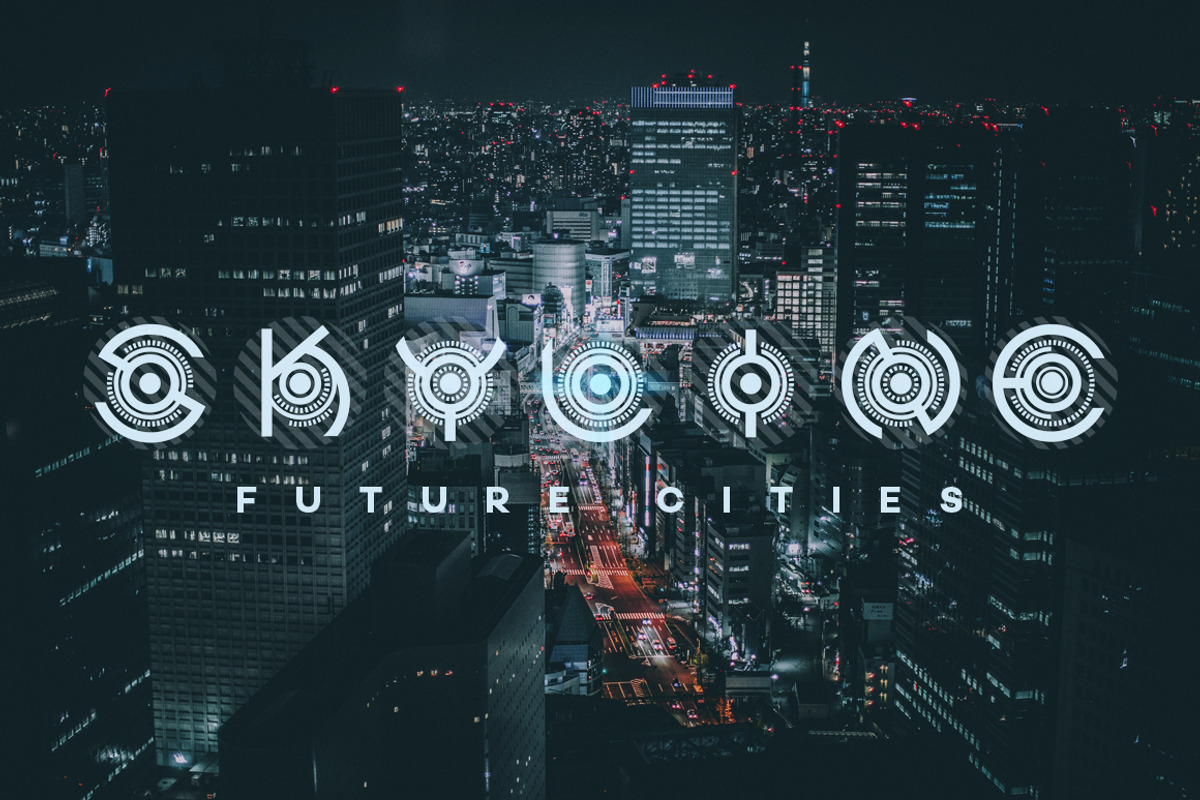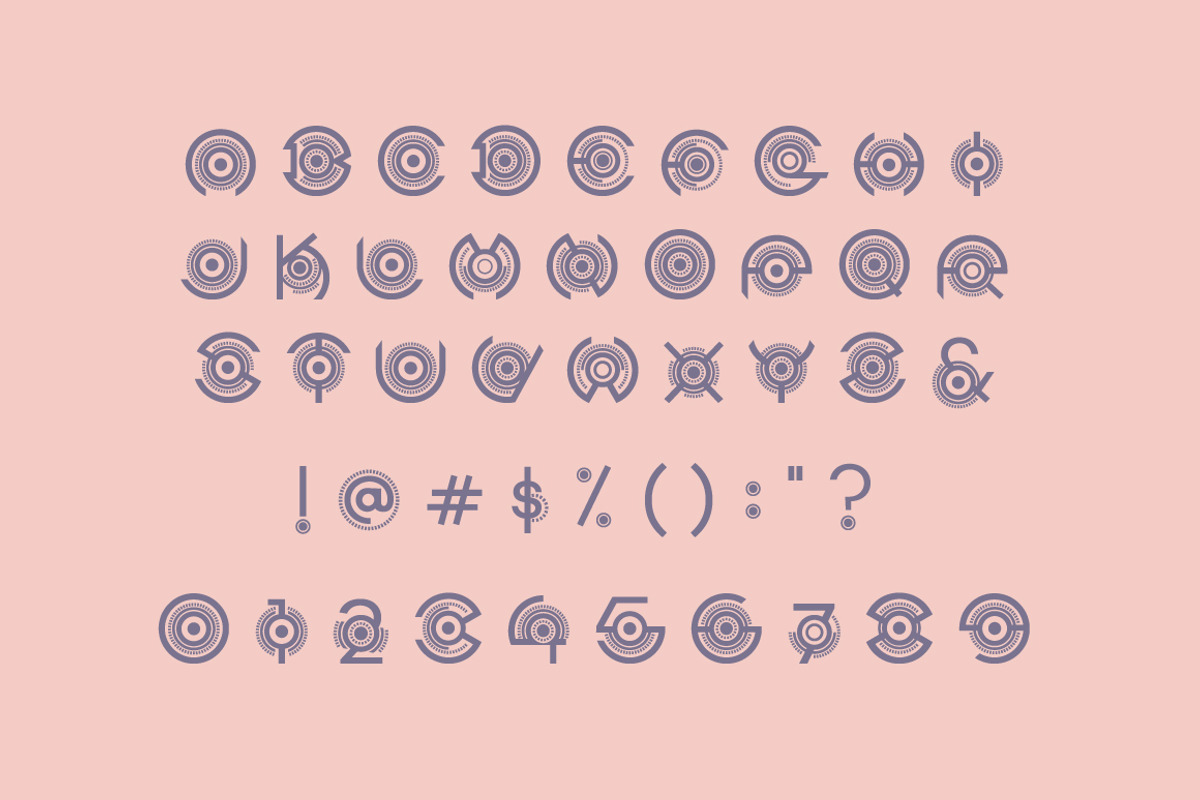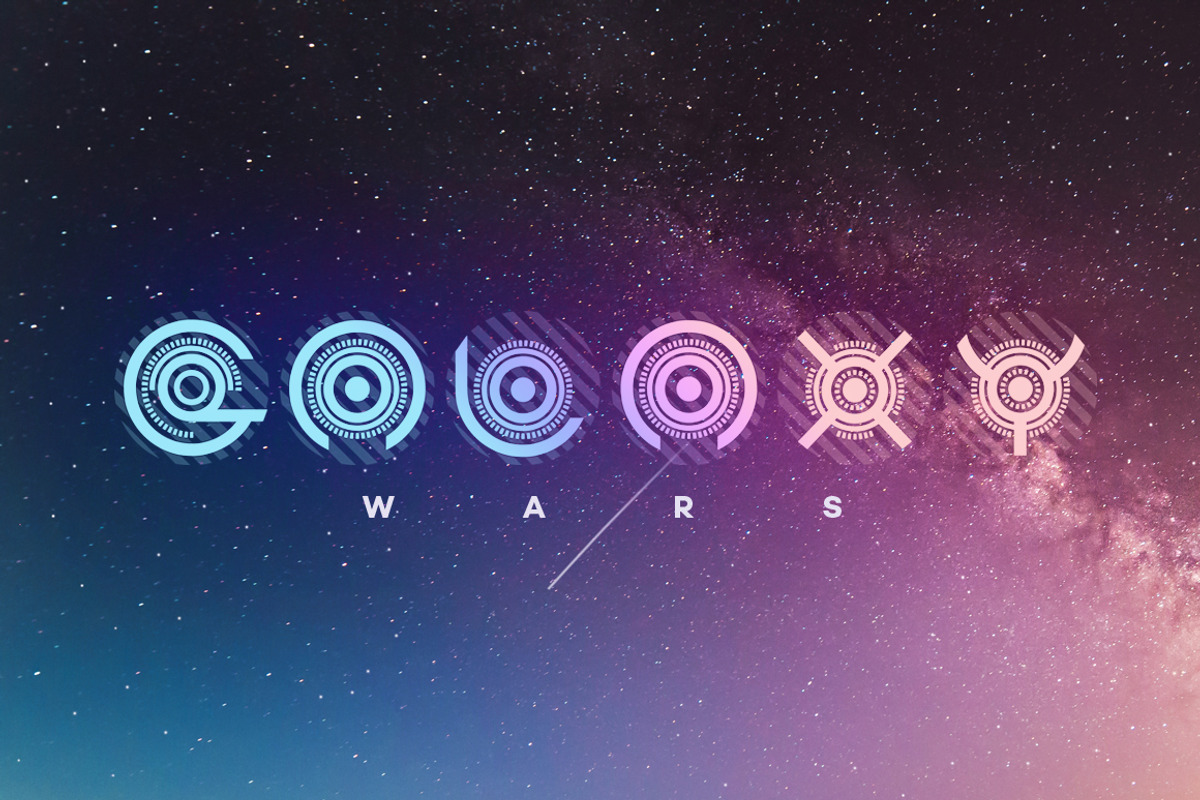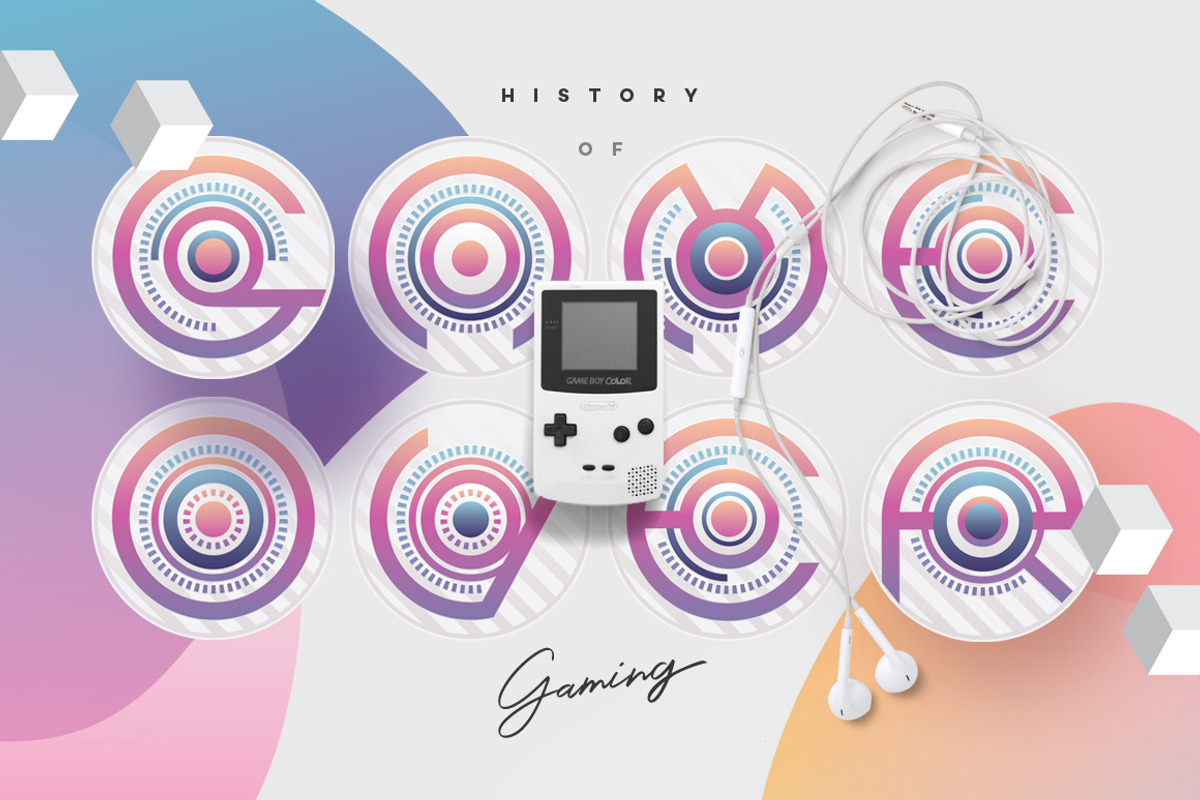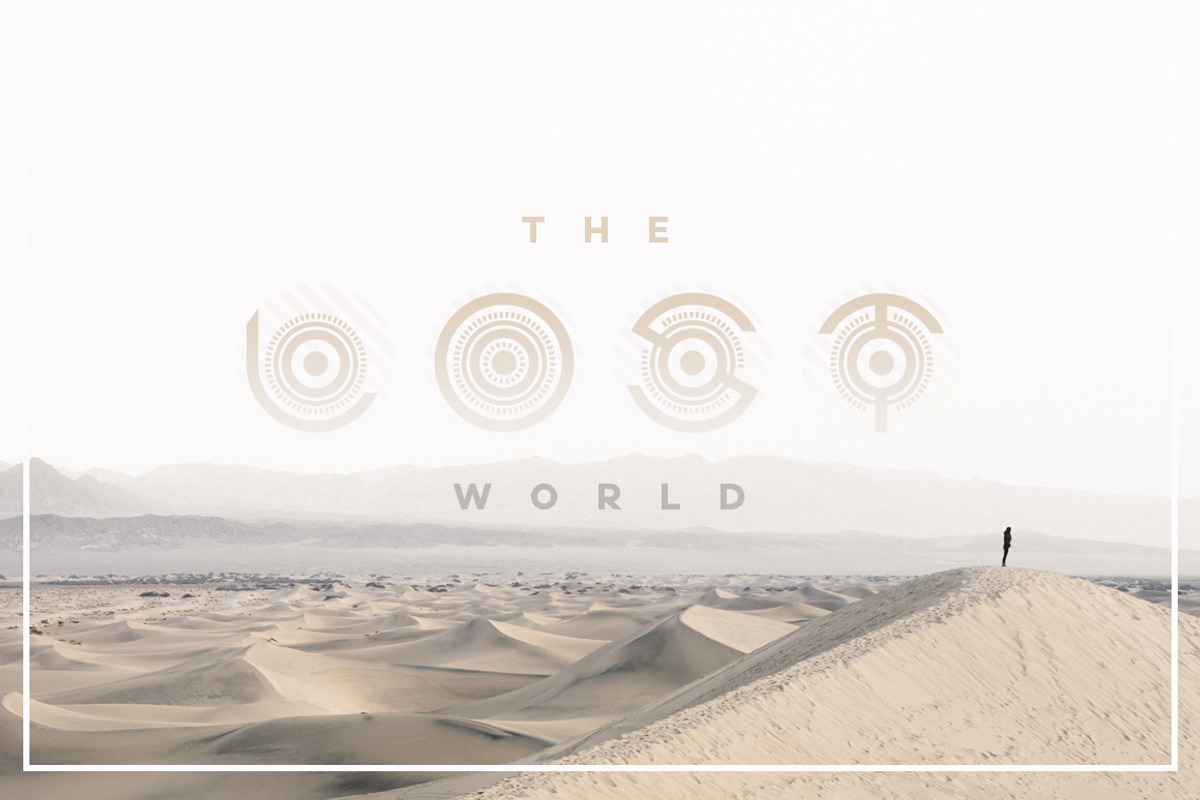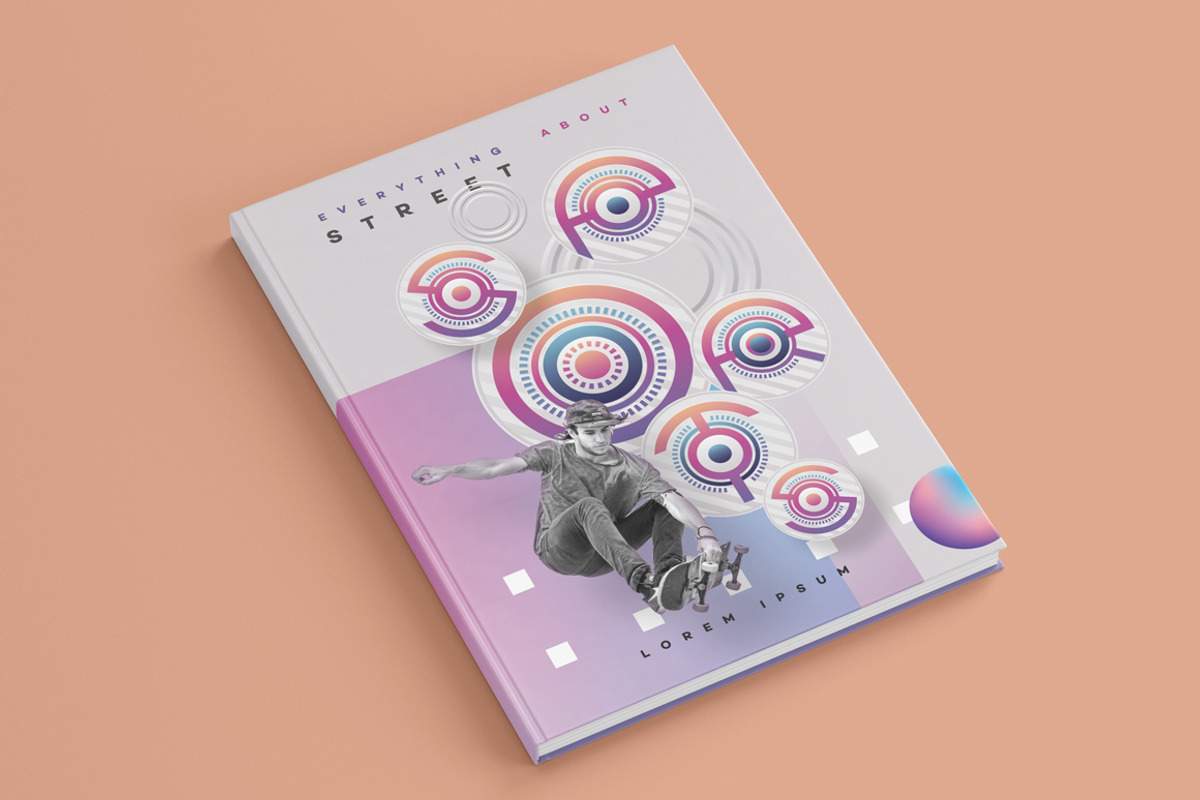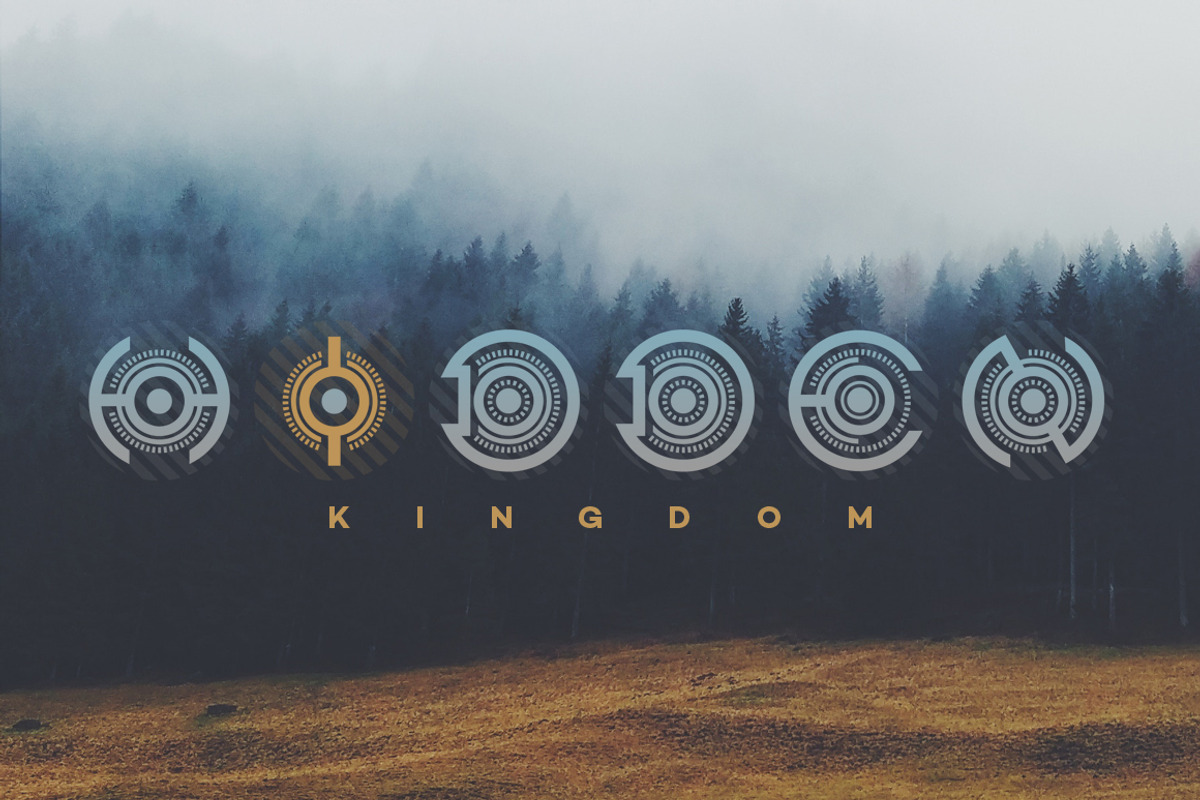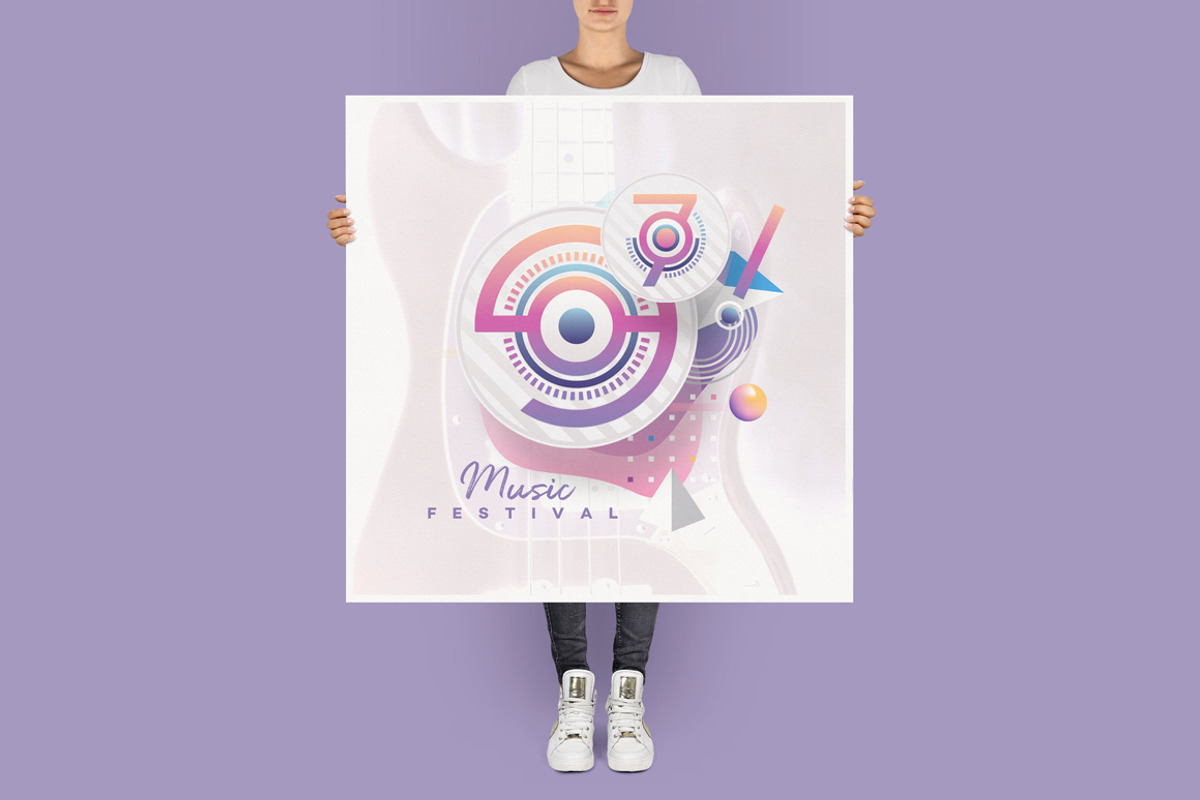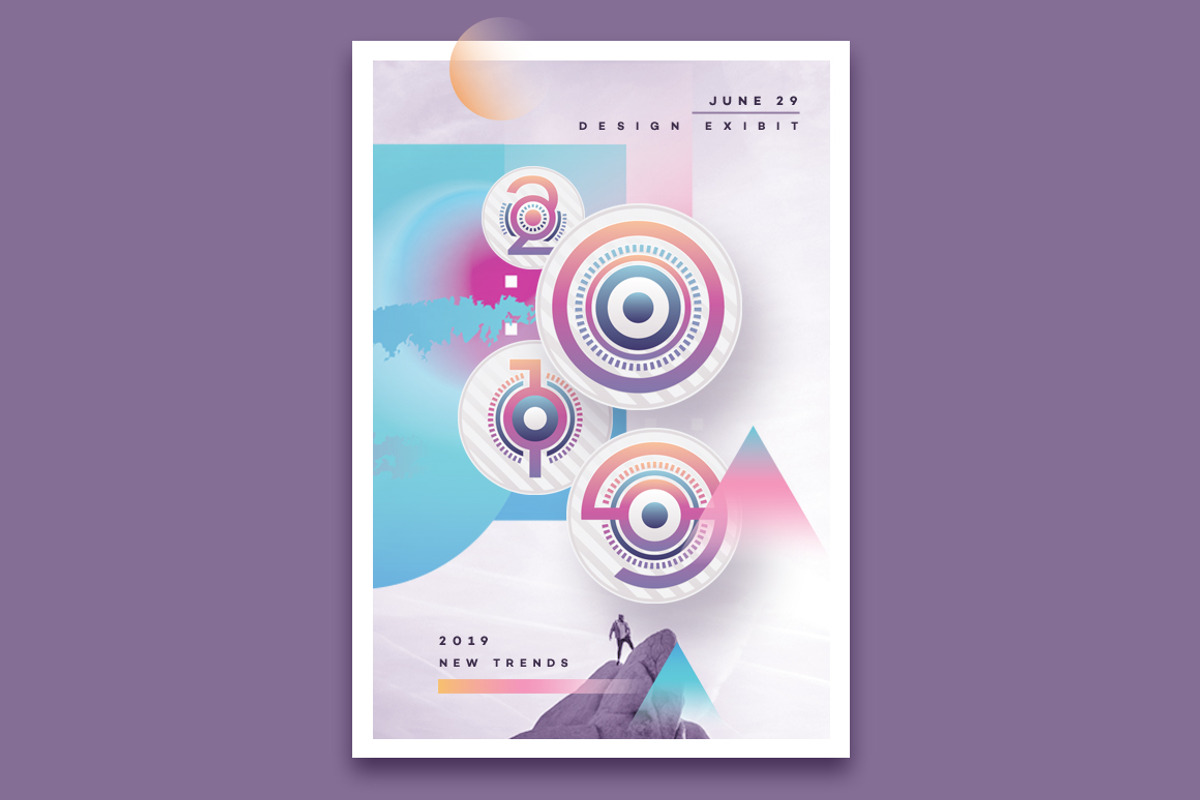
The Game- SVG Color font
THE GAME SVG COLOR FONT
The Game SVG Color Font is a vibrant, fun, futuristic font that will bring modern feel to your designs! You can use it in many different ways. I made a few preview images for you to see and get inspired. Game font will be great in UI designs for web and mobile apps. It will be awesome in print, poster designs, brochures / book covers etc.